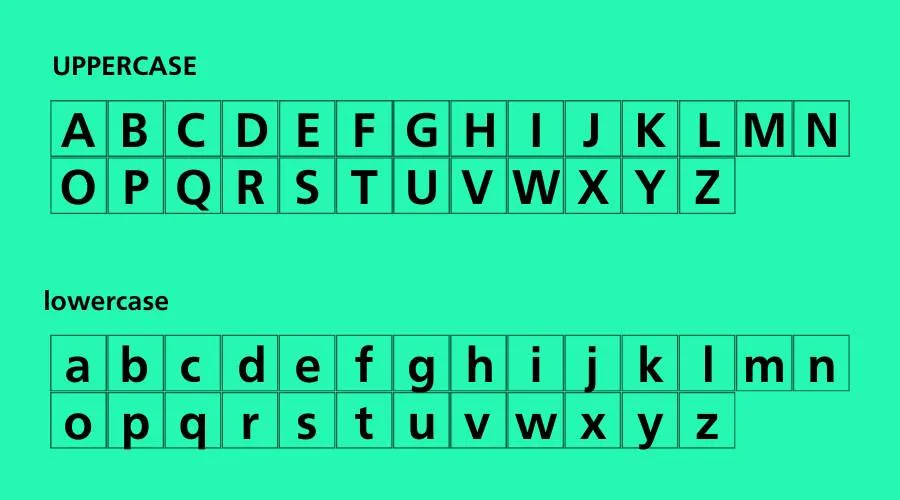
About Frutiger Bold Font
Designed with precision, Frutiger Bold Font merges creative flair with emotional connection in every character. This versatility makes it particularly effective for literary works, where reliability and consumer connection directly impact communication quality. Each letterform demonstrates meticulous craftsmanship.
Technical excellence shines through elements like elegant spacing and proportional figures, enhancing typographic versatility. In artistic statements settings, Frutiger Bold Font proves its worth through superior detail preservation. The thoughtful execution of stem weight and market position ensures professional results.